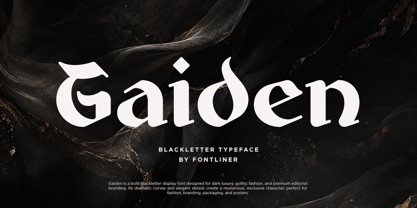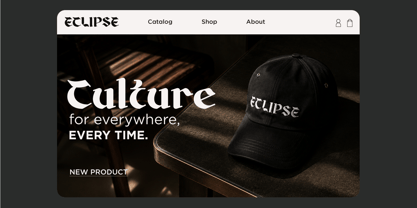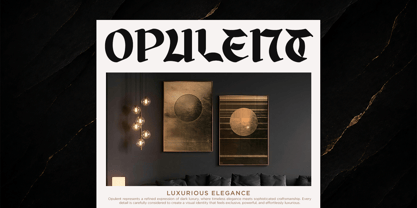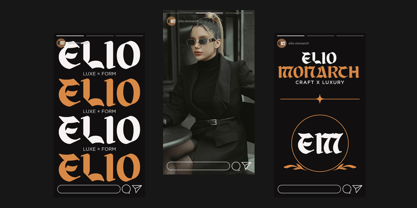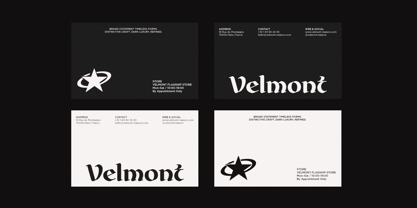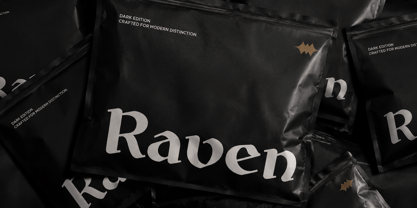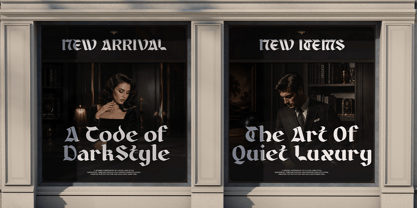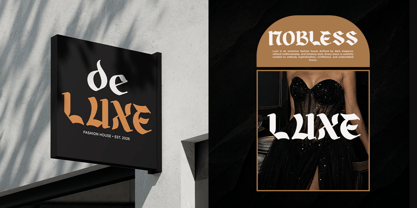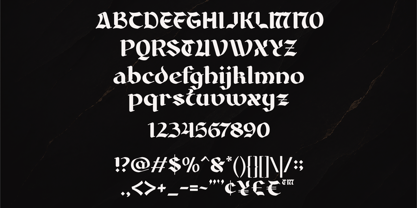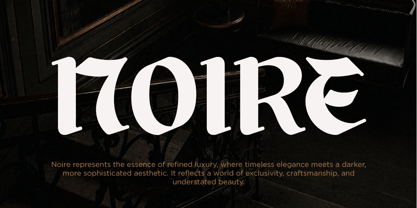
Gaiden
by Font Liner
The Gaiden Font Family was designed by Ghina Luthfiarieska and published by Font Liner. Gaiden contains 2 styles and family package options. More about this family
Gaiden is a bold blackletter gothic display font designed to bring a dramatic, sophisticated, and distinctive character to your typography projects. Its sharp yet elegant letterforms combine traditional blackletter influences with a modern display aesthetic.
Perfect for luxury branding, fashion logos, tattoo designs, editorial layouts, posters, packaging, album artwork, merchandise, and headlines. Gaiden works especially well when you need typography that feels dark, powerful, historical, and premium.
Whether you're creating a striking logo, an atmospheric poster, or an exclusive fashion identity, Gaiden adds a strong visual presence and memorable gothic character to your design.